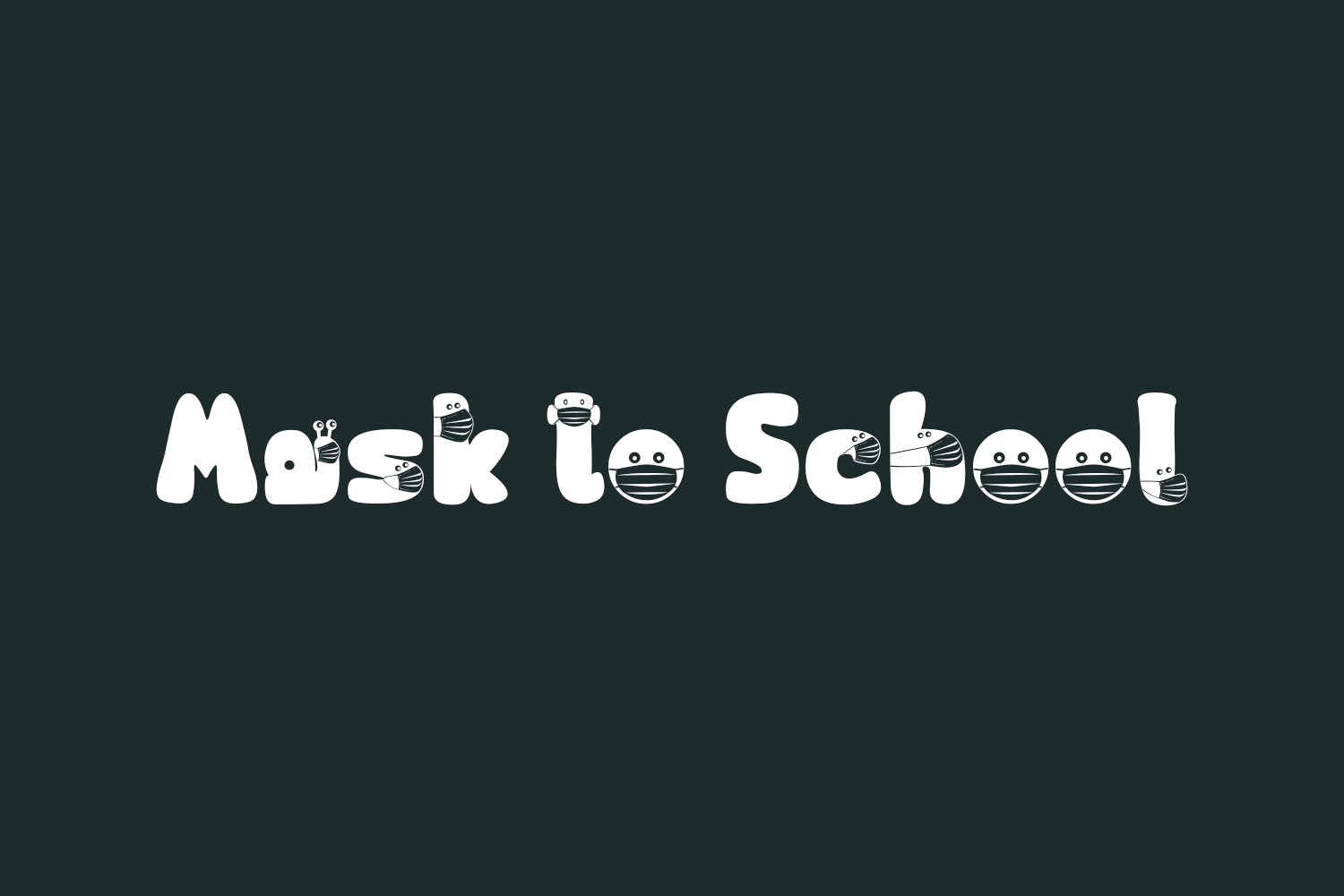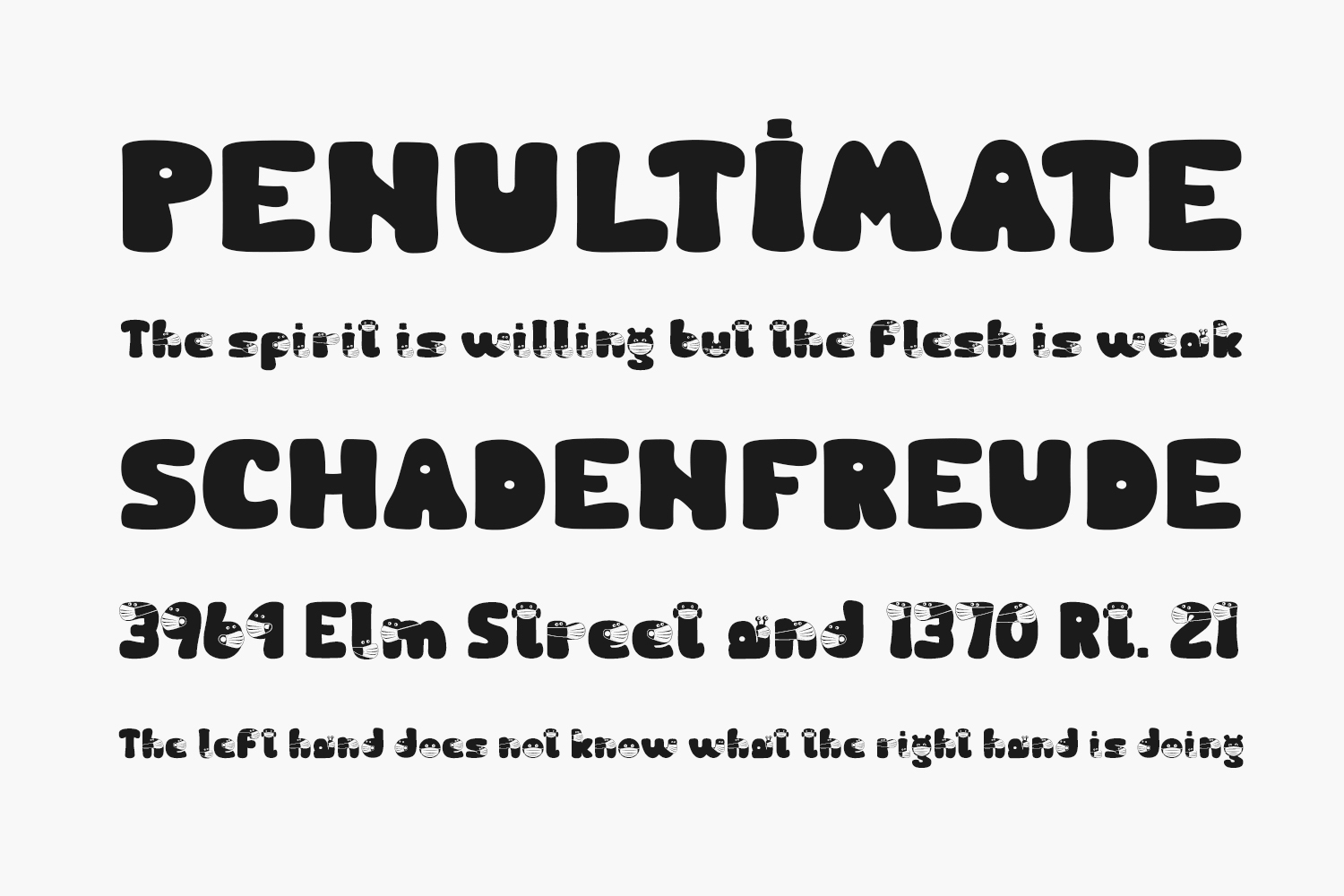
Mask to School Free Font is a cool, fun, and friendly decorative font. It embodies playfulness and authenticity and is the perfect choice for any children’s activity or school project. Mask to School Free Font was designed by Jaime Rangel Castro and is free for personal use only. Please purchase the full version for commercial use.